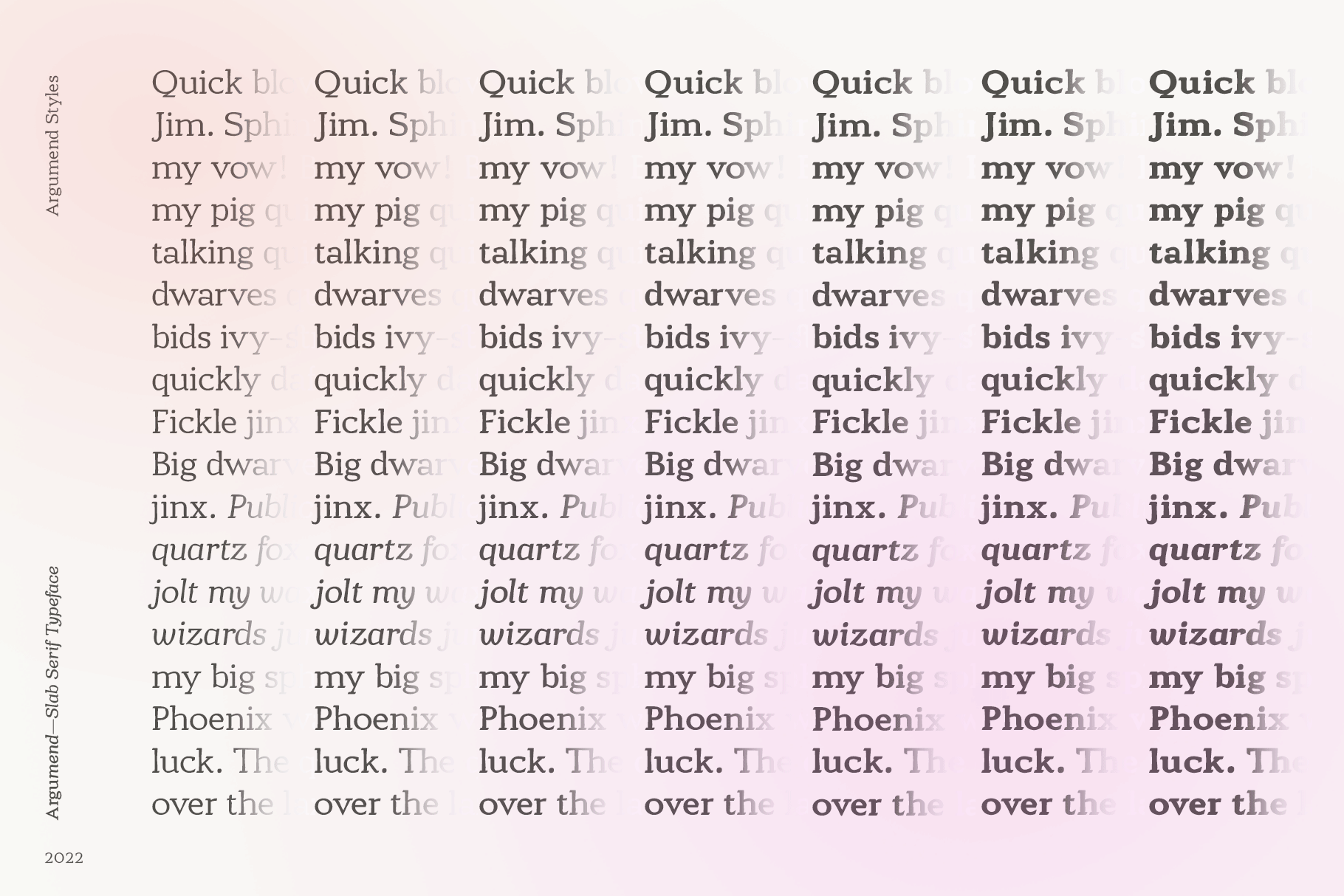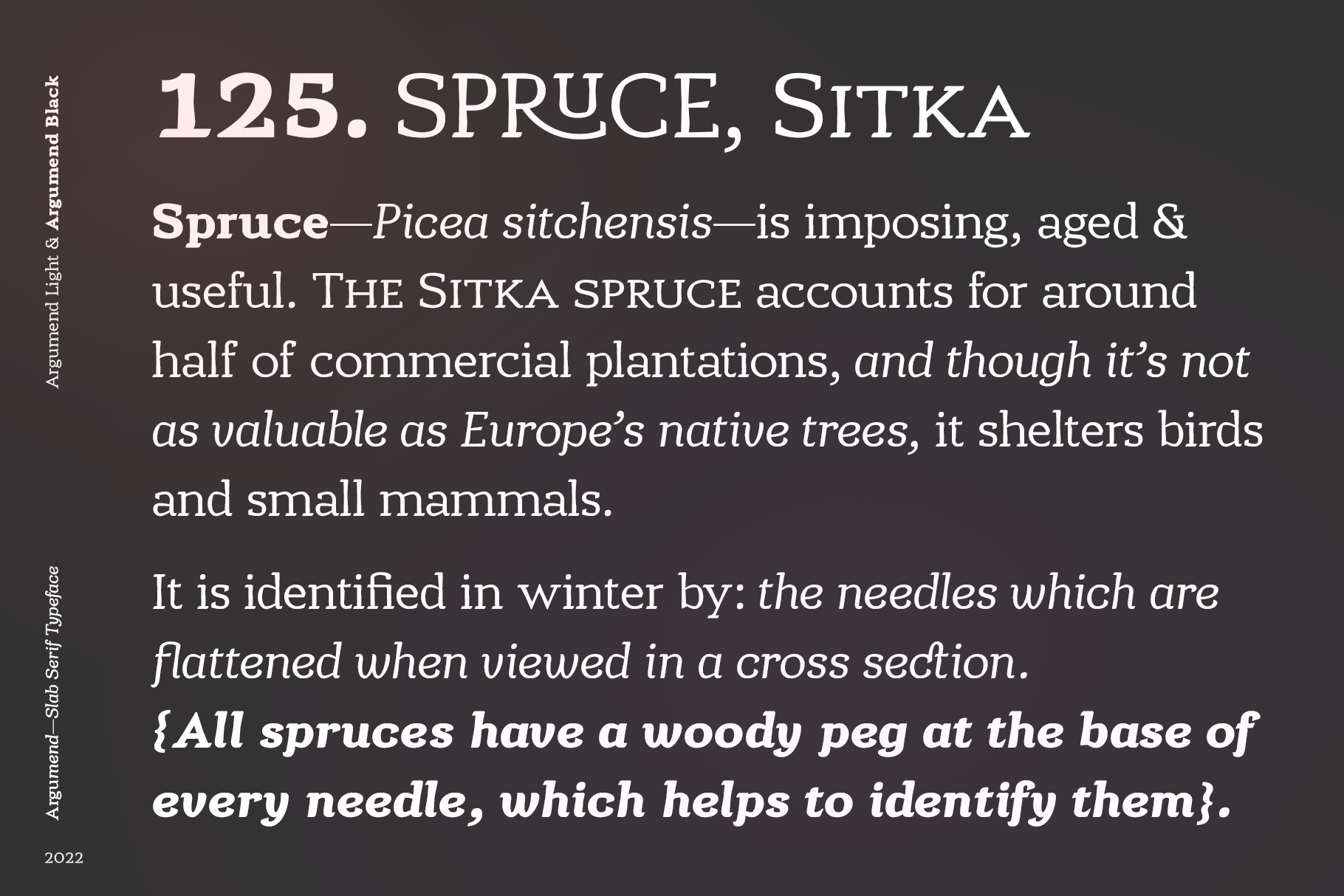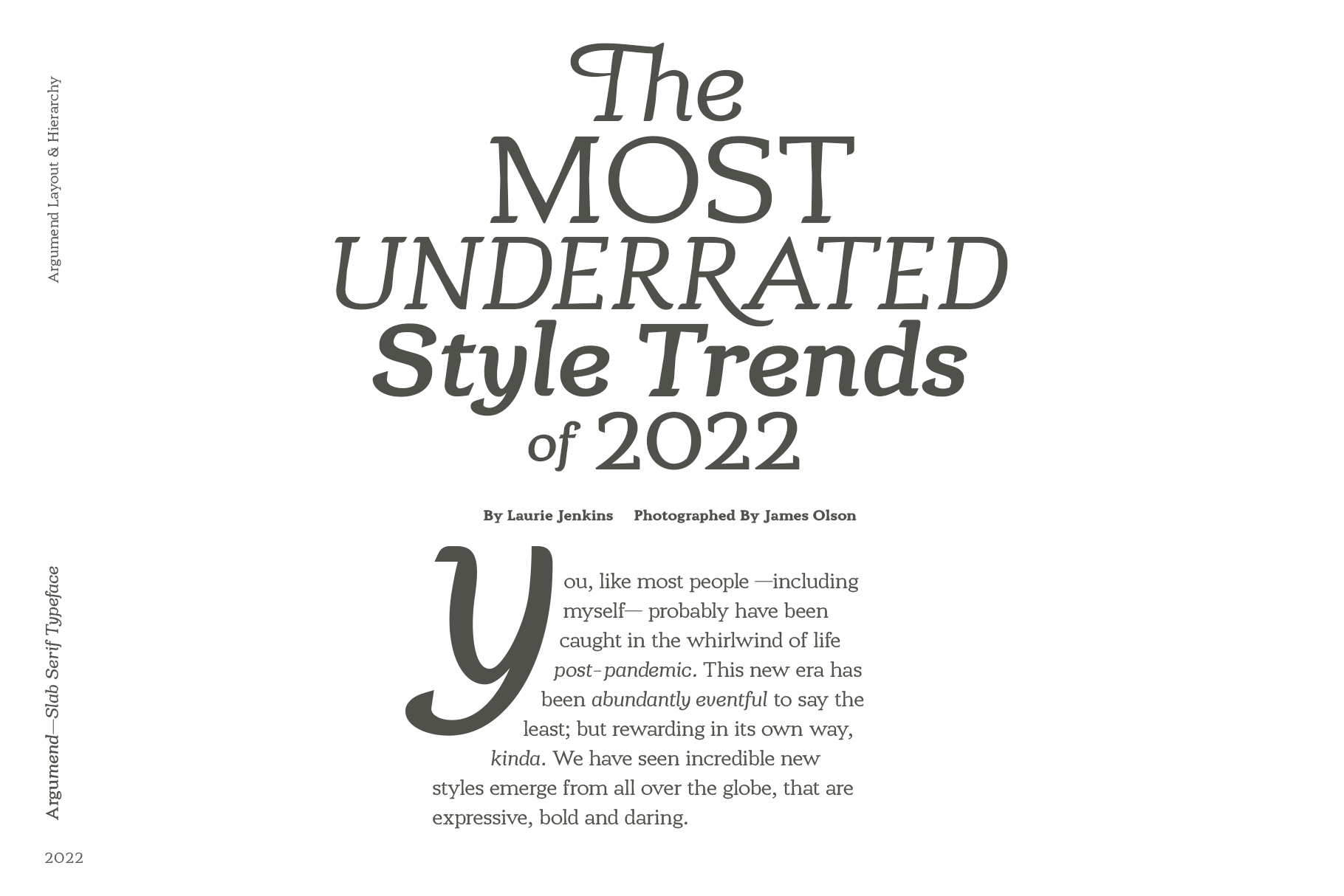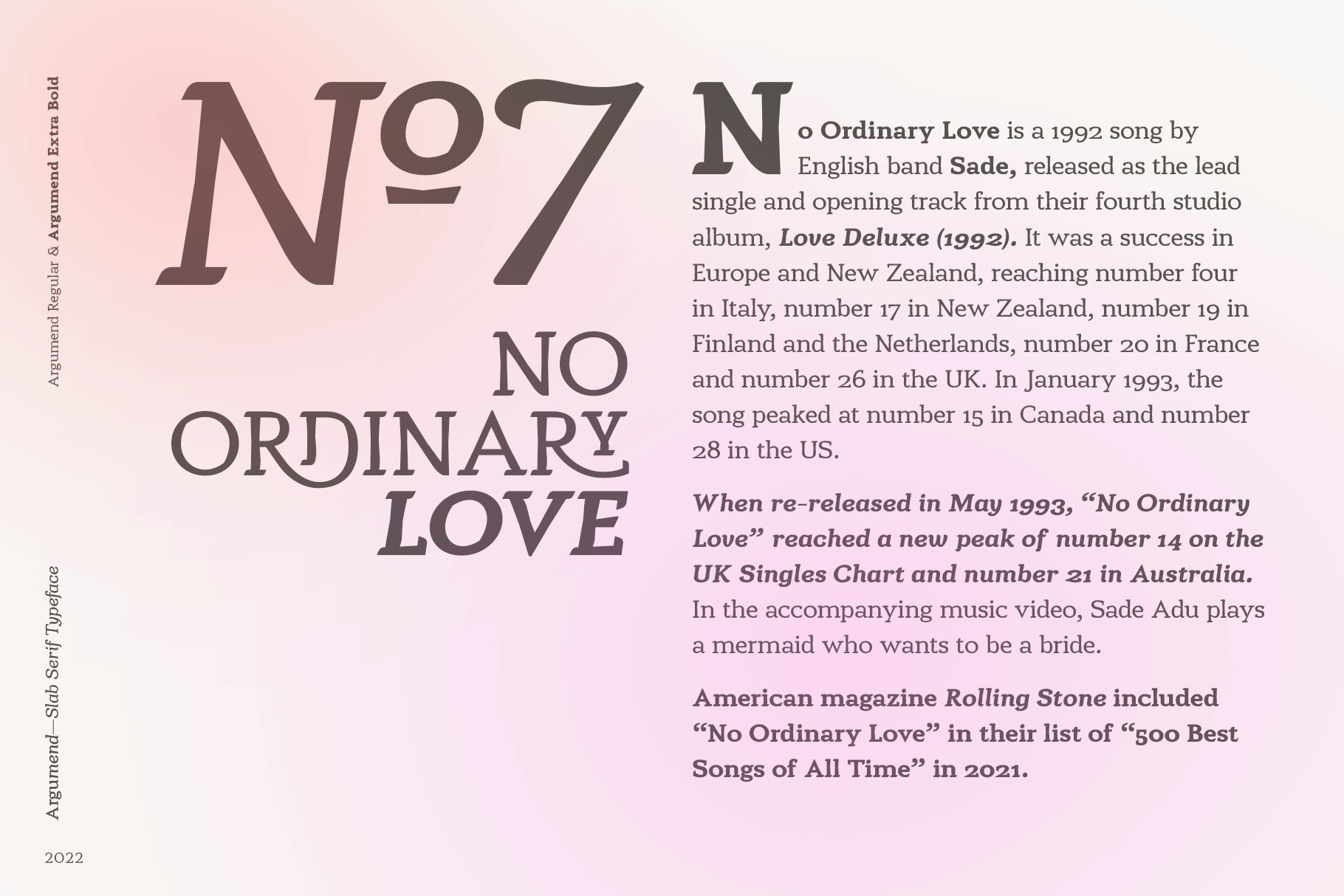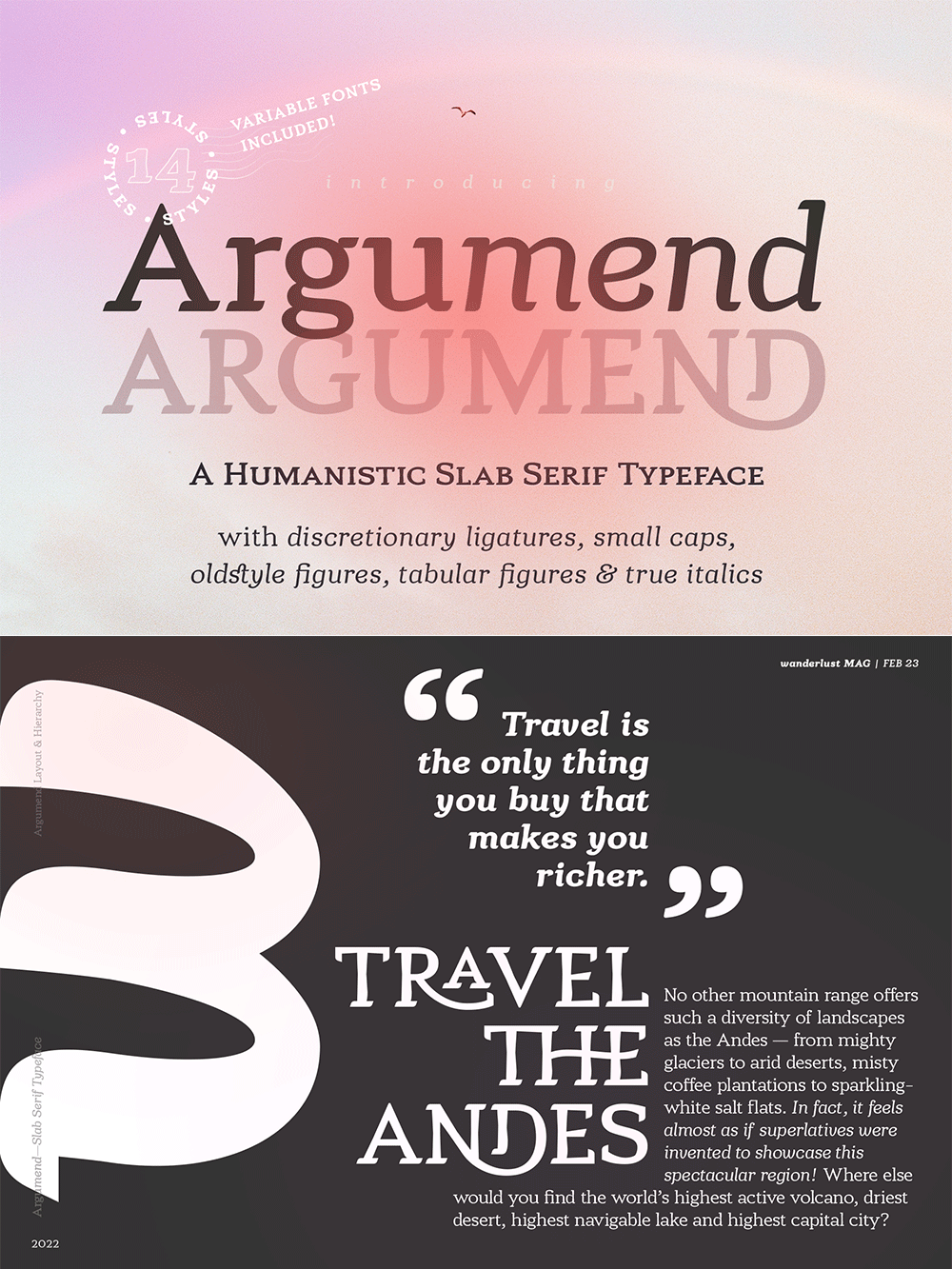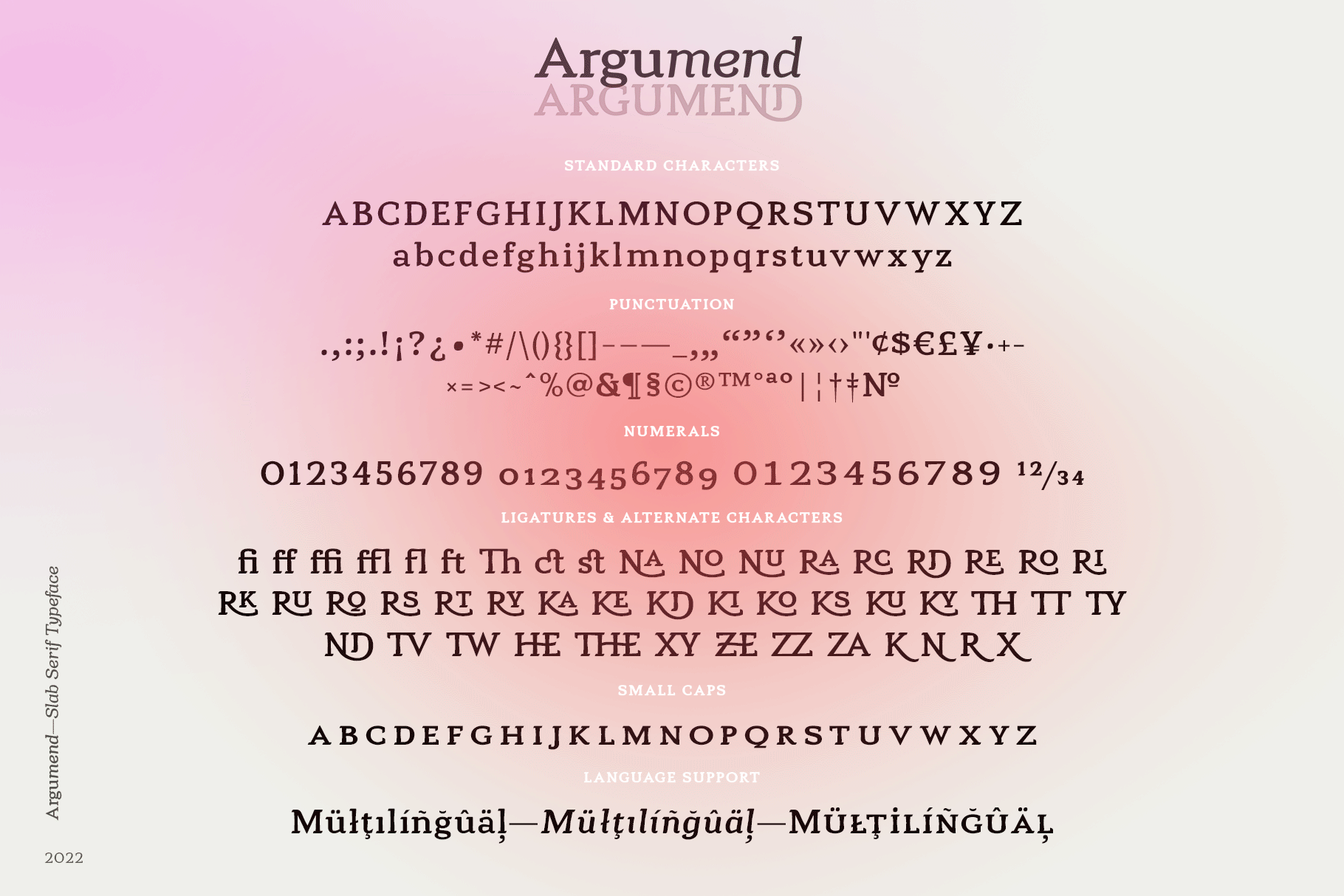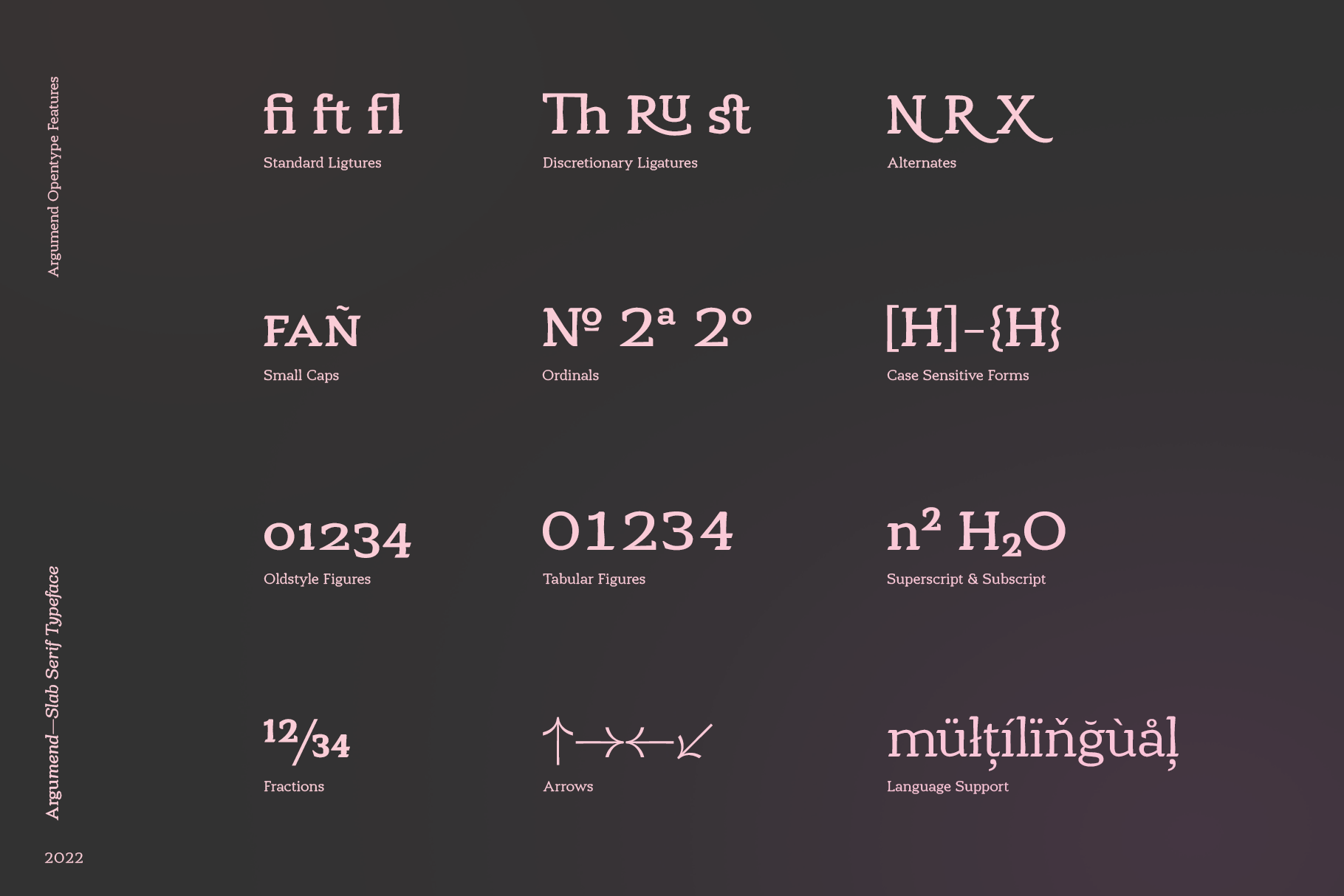
Argumend | A Humanistic Slab Serif Typeface
Argumend is a versatile slab serif typeface with a wide range of Opentype features.
FEATURES
- Upper Case & Lower Case Character Sets
- Extended Punctuation
- Proportional, Oldstyle and Tabular Numbers
- Fractions, Superscript and Subscript
- Standard & Discretionary Ligatures
- Small Caps
- Case Sensitive Forms
- Arrows
- Multilingual